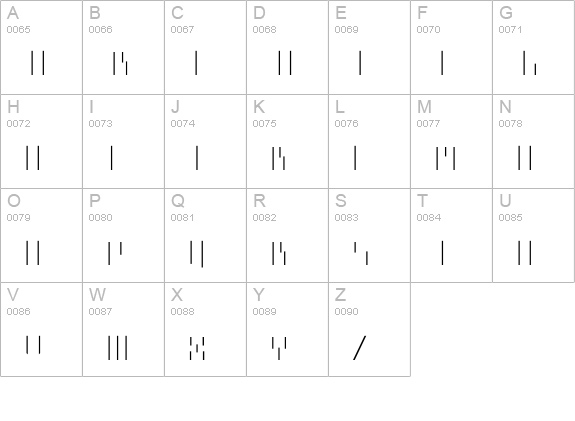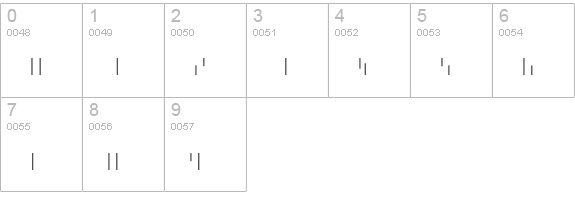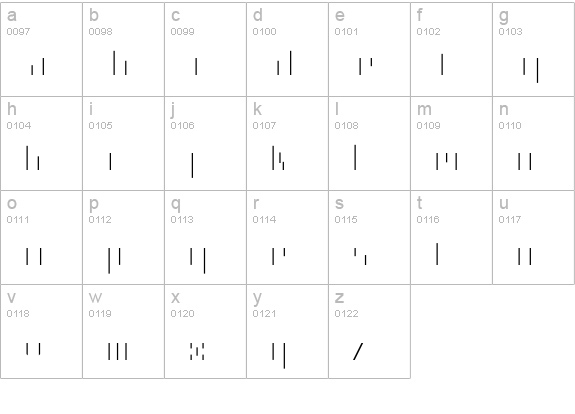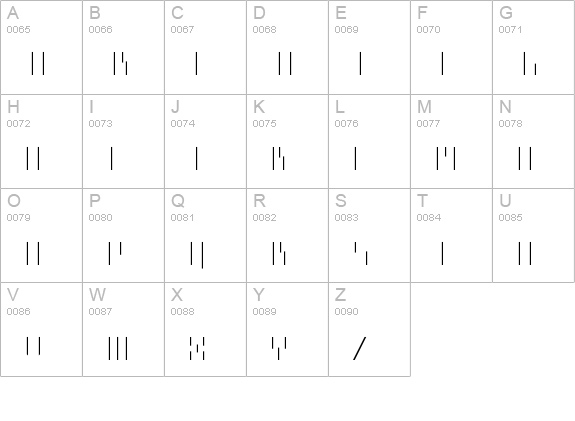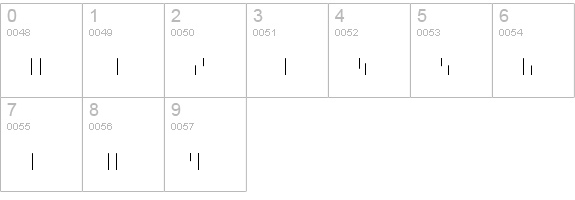
Minimum-BClairVertical is a sleek and modern font that exudes simplicity and elegance. With clean lines and a minimalistic design, this font is perfect for adding a touch of sophistication to any project. Its vertical orientation adds a unique twist, making it stand out from traditional horizontal fonts. The tall and narrow letterforms create a sense of stylish verticality, making it ideal for headlines, titles, and other display purposes. The best part about Minimum-BClairVertical font is that it is completely free to download at FontsMarket.com. You can easily access this stylish font and enhance your designs with its contemporary aesthetic. Whether you're working on branding, advertising, or any other creative project, Minimum-BClairVertical font is sure to make a statement. Elevate your design with this versatile and eye-catching font today!